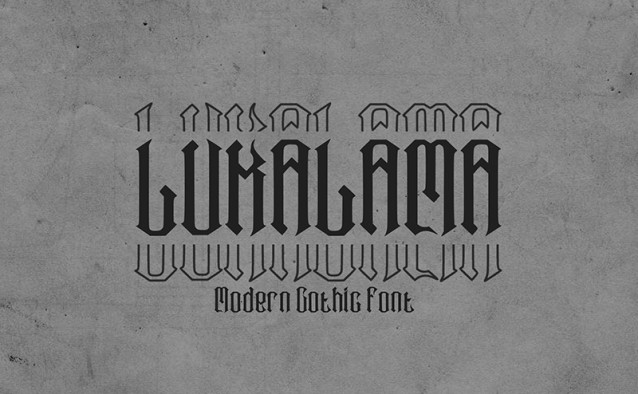
Lukalama Font
Lukalama Font a striking modern gothic blackletter font designed to make a statement. Blending centuries-old calligraphy with clean, contemporary geometry, this typeface is engineered for high-impact visual storytelling. It delivers maximum legibility while retaining its sharp, rebellious, and artisanal soul.